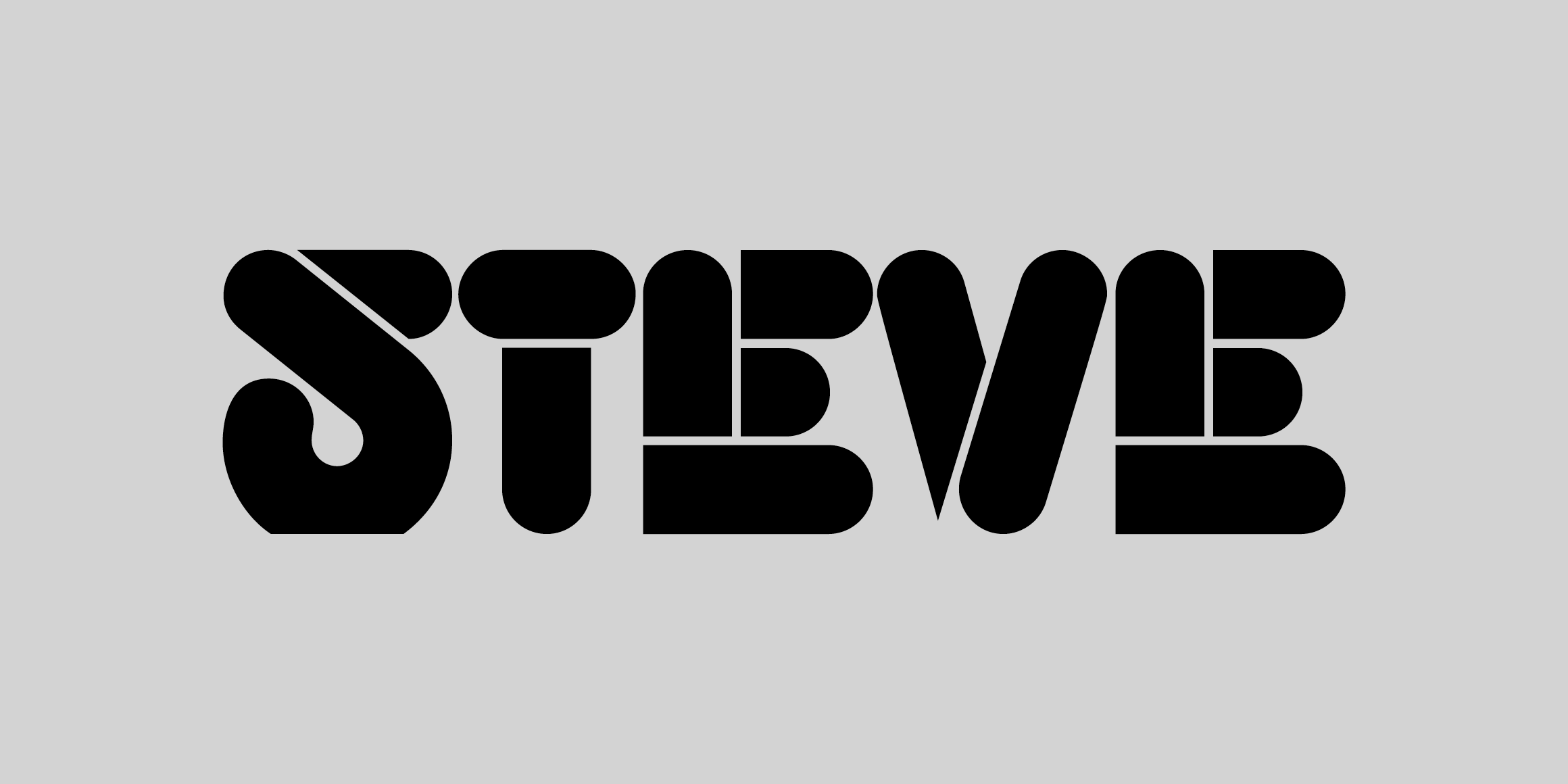
Beans
LL Beans is designed by Dieter Zembsch, first released as dry-transfer sheets by Letraset in 1973. The digital re-issue is designed by Charles Grant, with kind approval of Dieter Zembsch.